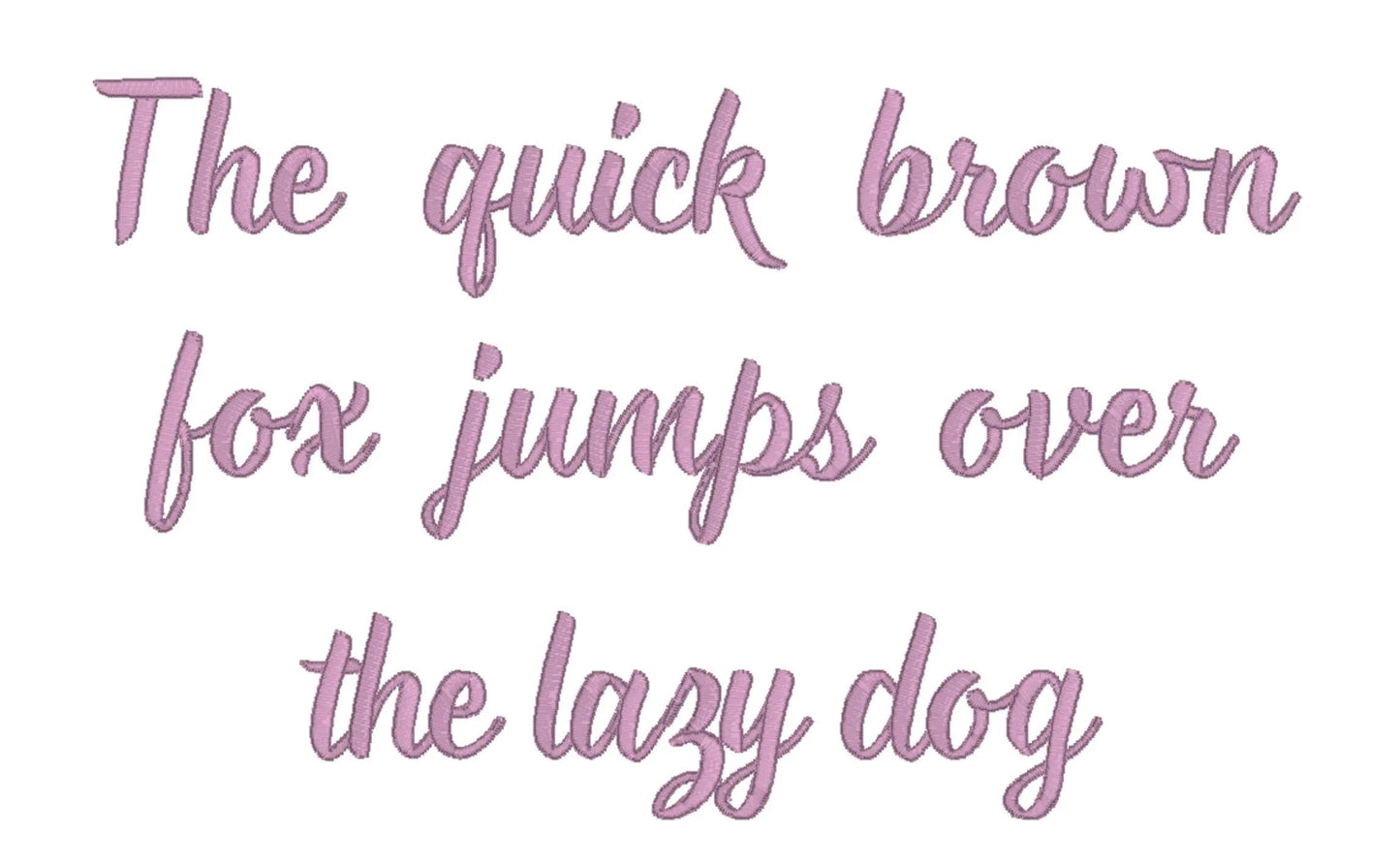
Do 3D Puff Sans Serif Embroidery Font
Do 3D Puff is a Sans Serif machine embroidery font featuring beautiful satin stitch lettering. Perfect for shirts, towels, hats, baby gifts, monograms, and small business embroidery projects.